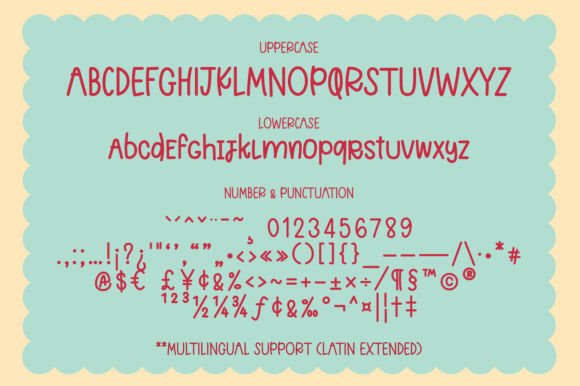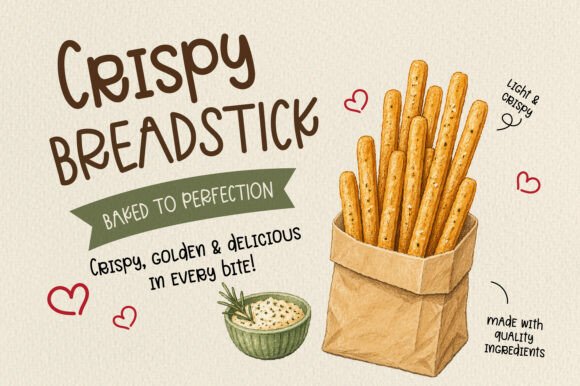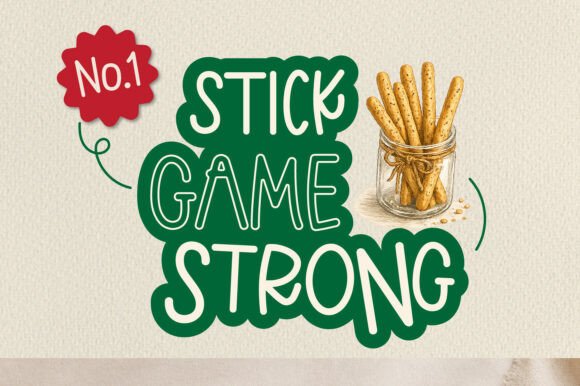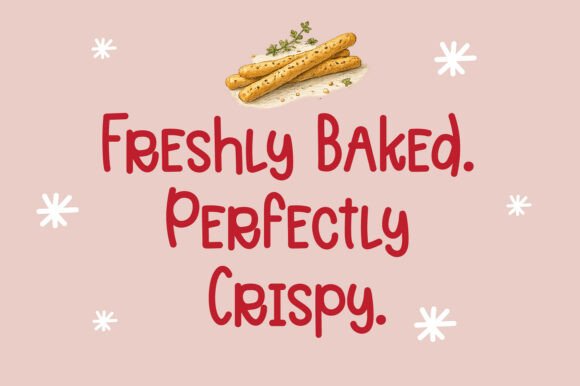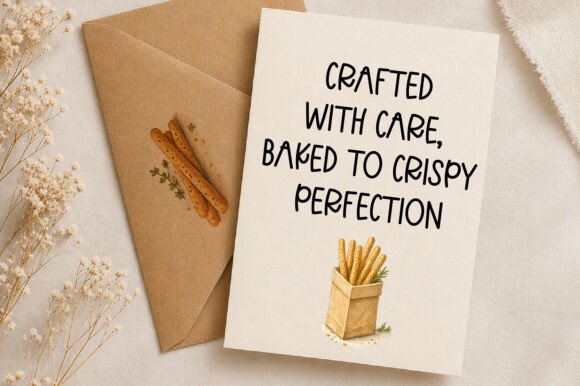
Introducing Crispy Breadstick Font: The Perfect Handwritten Font for Creative Projects
Are you looking for a unique and quirky font to add a personal touch to your creative projects? Look no further than Crispy Breadstick, a delightful handwritten font created with love by mtk studio. This tall, skinny font is perfect for designers and crafters who want to add a touch of authenticity and coziness to their work.
The Characteristics of Crispy Breadstick Font
Crispy Breadstick is a hand-drawn font that boasts a perfectly imperfect, authentic feel. Its thin, slightly bouncy strokes give it a cozy aesthetic that looks exactly like neat, cute handwriting. The font’s quirky and whimsical nature makes it perfect for a variety of creative projects, from digital planners and journals to bakery branding and minimalist crafting.
Crispy Breadstick font is versatile and can be used for a wide range of creative projects, including:
- Digital Planners, Journals & Diaries: Add a personal touch to your Goodnotes and Notability designs with Crispy Breadstick font.
- Recipe Cards & Cookbook Designs: Create beautiful and easy-to-read recipe cards and cookbook designs with this delightful font.
- Bakery, Cafe & Small Business Branding: Give your bakery, cafe, or small business a unique and quirky brand identity with Crispy Breadstick font.
- Minimalist Product Packaging & Labels: Add a touch of elegance and sophistication to your product packaging and labels with this font.
- Cricut & Silhouette Crafting Projects: Use Crispy Breadstick font to create beautiful and unique crafting projects with your Cricut or Silhouette machine.
- Social Media Quotes & Canva Templates: Create stunning social media quotes and Canva templates with this font.
- Scrapbooking & Cute Greeting Cards: Add a personal touch to your scrapbooking and greeting card designs with Crispy Breadstick font.
What Makes Crispy Breadstick Font Special?
Crispy Breadstick font comes with a range of features that make it a standout font:
- Multilingual Support (Latin Extended): This font includes multilingual support, allowing you to create designs that reach a global audience.
- Easy to Read: The font’s thin, slightly bouncy strokes make it easy to read, even at small sizes.
- Perfectly Imperfect: The font’s hand-drawn nature gives it a perfectly imperfect, authentic feel that adds a touch of personality to your designs.
Crispy Breadstick font is a unique and versatile handwritten font that’s perfect for designers and crafters who want to add a touch of personality to their creative projects. With its quirky and whimsical nature, multilingual support, and easy-to-read design, this font is sure to become a favorite in your design arsenal. Whether you’re creating digital planners, recipe cards, bakery branding, or minimalist crafting projects, Crispy Breadstick font is the perfect choice.